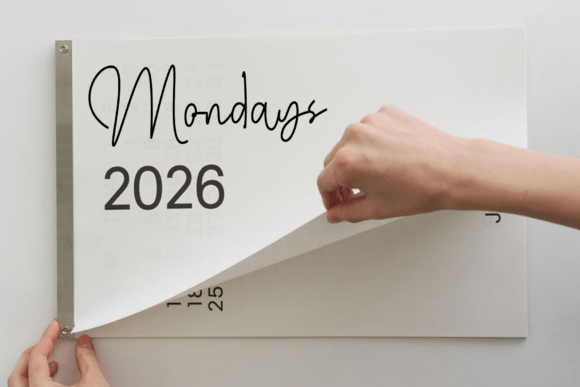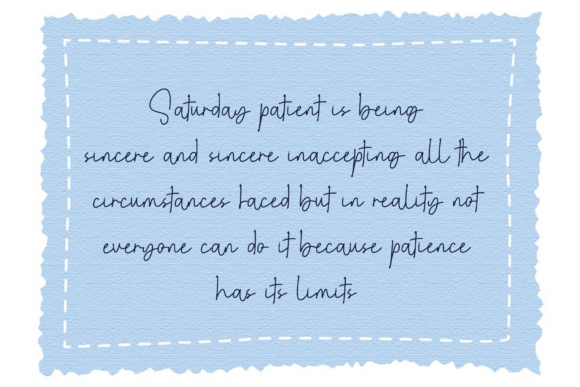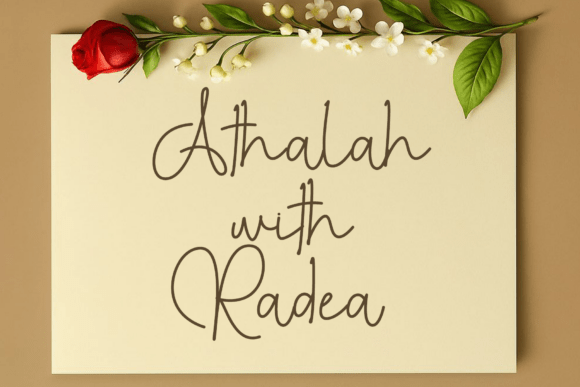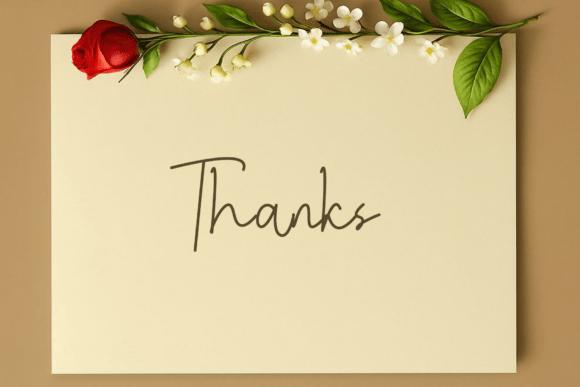
The Birth of a Timeless Font: A Designer’s Delight
I’ll never forget the time I was working on a birthday-themed project for a client, and I just couldn’t find the right font to match the celebratory vibe. The client wanted something that felt both elegant and playful, but everything I tried seemed to fall flat. That’s when I stumbled upon the Birthday Font – a lovely, timeless handwritten font that instantly brought the project to life!
As a designer, I’m always on the lookout for fonts that can elevate my work and make it stand out. Here’s what I love about the Birthday Font:
- ✨ Unique and beautiful touch: Every letter has its own character, making it perfect for creating eye-catching logos, branding, and quotes.
- ✅ Highly versatile: Works well for both digital and print projects, from social media graphics to party invitations.
- 💫 Emotionally resonant: The handwritten feel makes it perfect for conveying warmth and personality.
Of course, no font is perfect, and there are a few quirks to keep in mind:
- ⚠️ Limited availability of certain characters: Some special characters and glyphs might not be readily available, so be sure to plan ahead.
- 🤔 Occasional kerning issues: As with any font, you might need to adjust kerning for optimal results, especially when using all caps or large text sizes.
The Designer Behind the Magic
While the true story behind the Birthday Font’s creation remains a mystery, it’s easy to imagine a designer pouring their heart into crafting a font that’s both beautiful and functional. Perhaps they drew inspiration from vintage birthday cards, elegant wedding invitations, or the whimsical world of children’s book illustrations. Whatever the backstory, the result is a font that’s sure to delight designers and crafters alike.
| Font Name | Birthday Font |
| Author | Sansana |
| Is the font suitable for body text? | While the Birthday Font is stunning, it’s best used for headlines, titles, or short paragraphs. For longer body text, consider pairing it with a more readable font. |